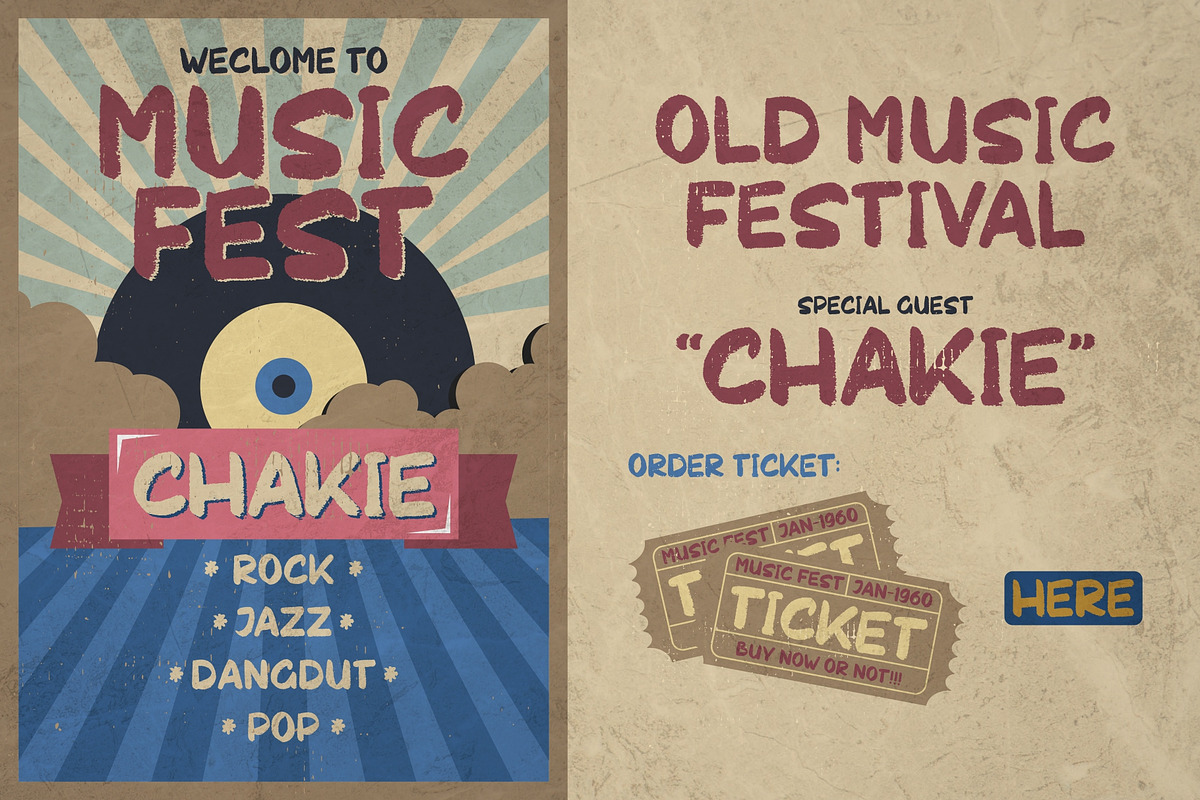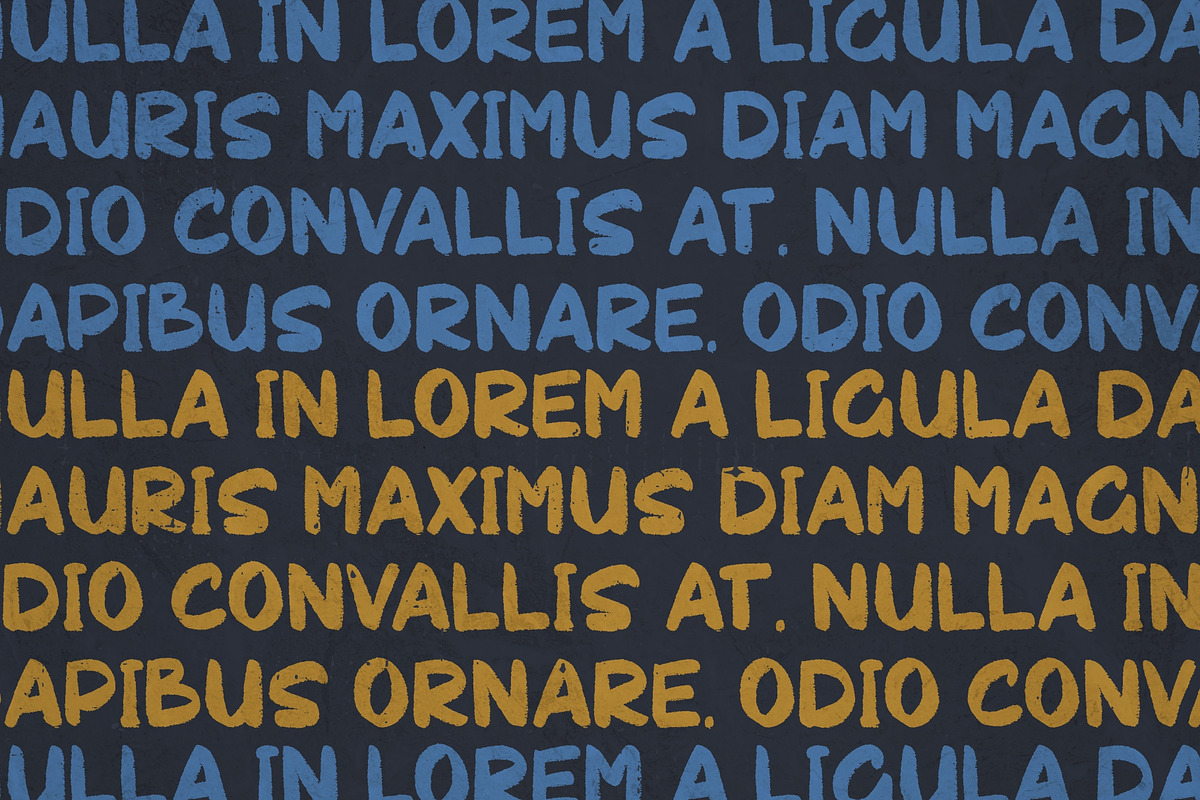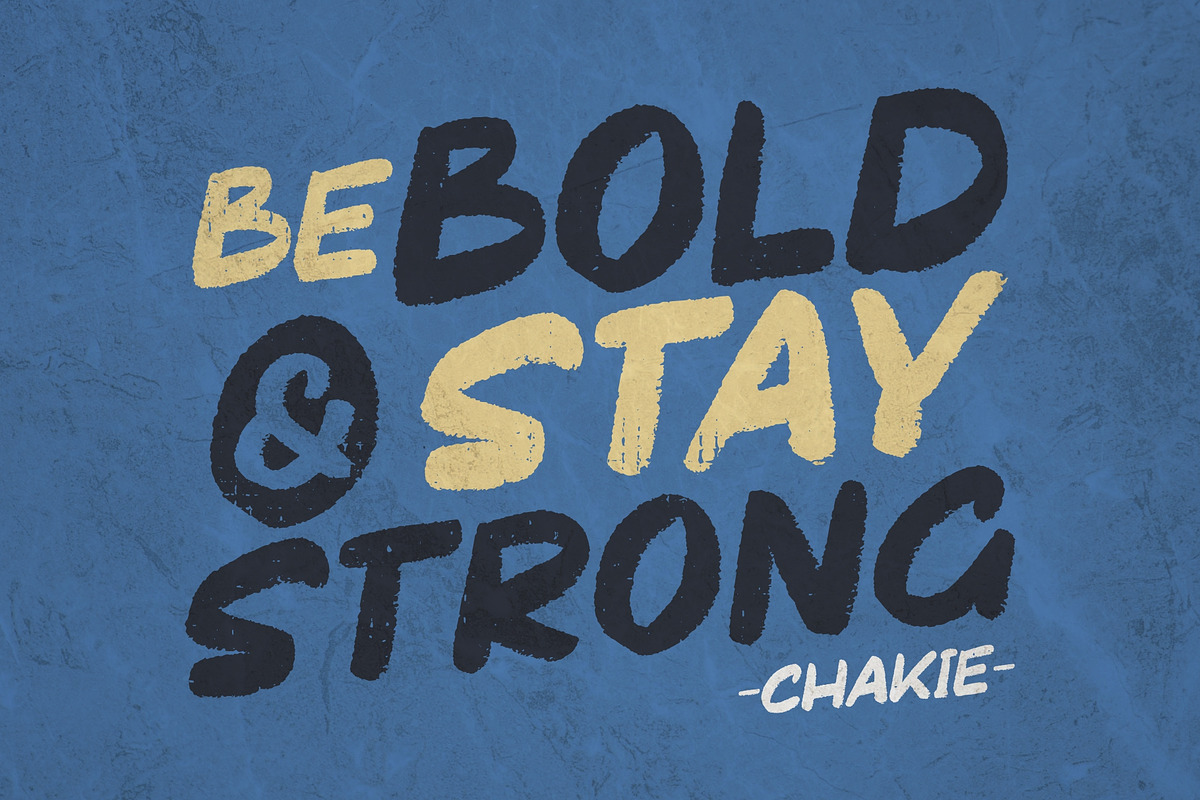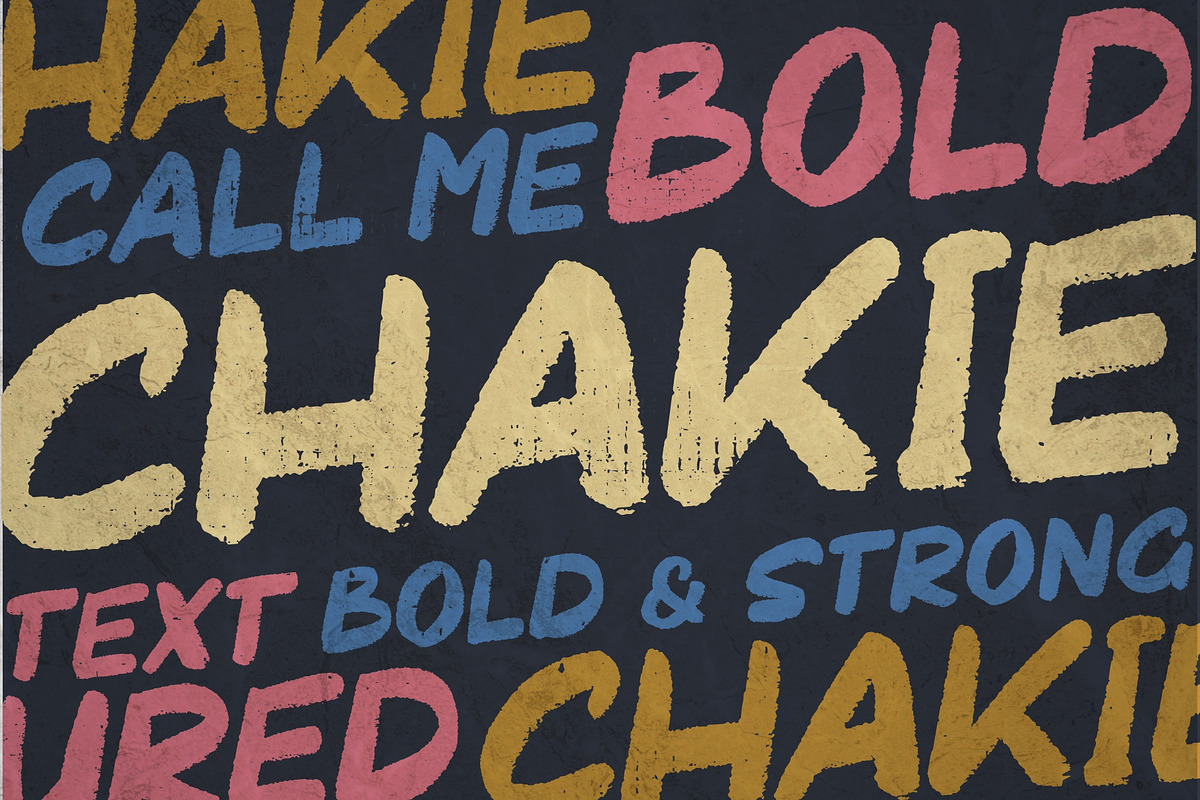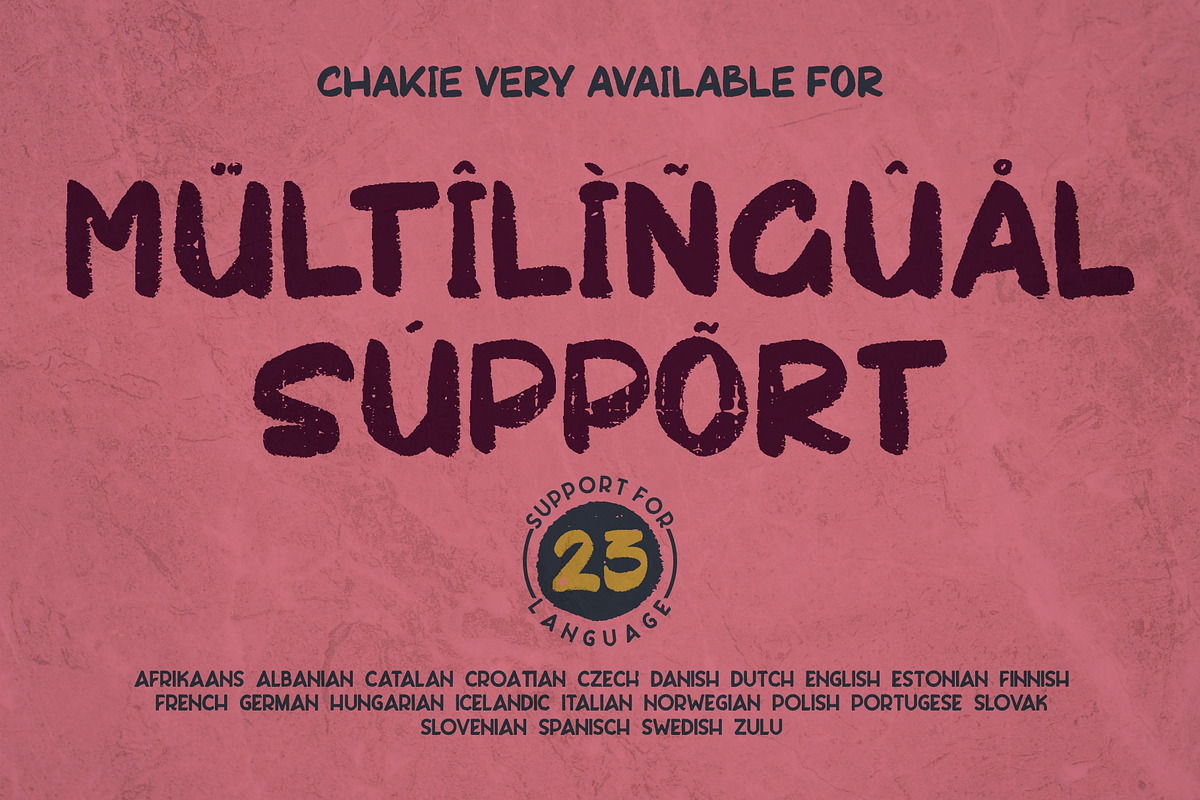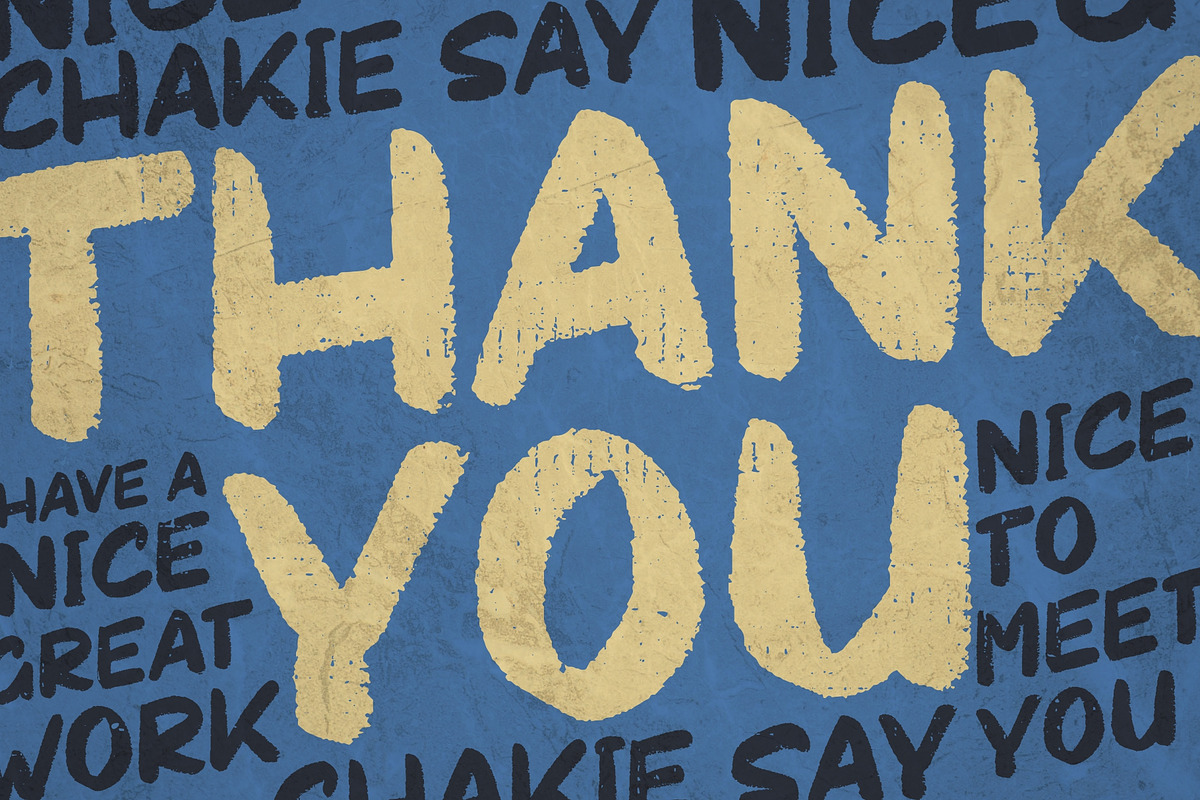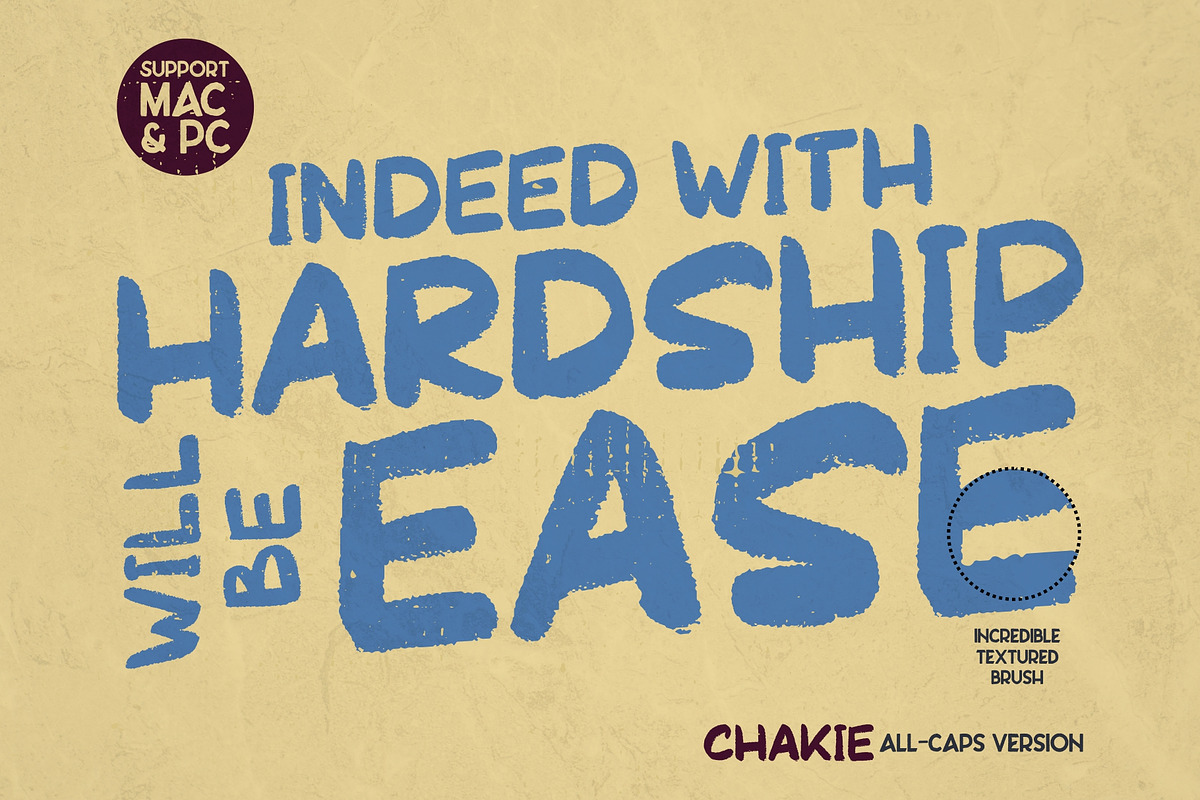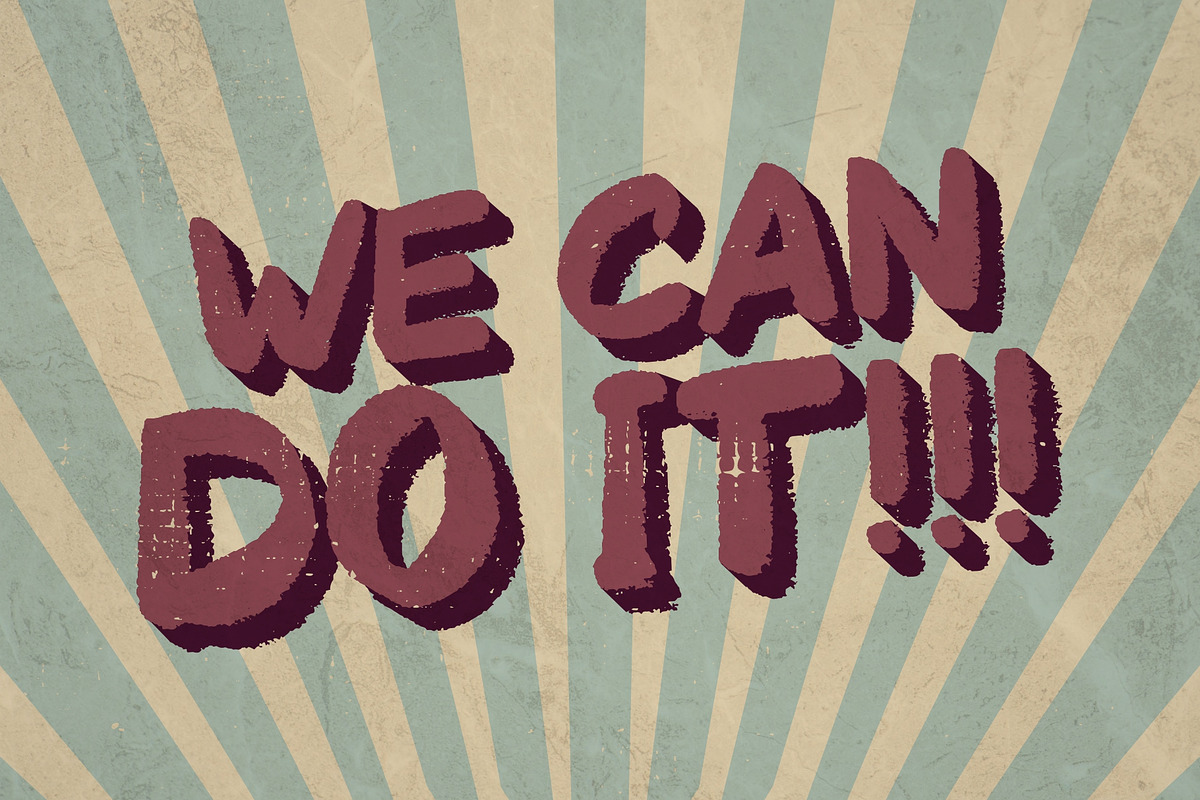
CHAKIE - Retro Brush Font
Just call me CHAKIE, i'm born from old natural brush chalk years '60-'70, the brush make me very bold and strong for your great work and design! You can use me for poster, t-shirt design, branding, packaging, label, typography design, and many more you want. Bring back me to the '60 brother! :D
We can support for 23 languange (WOW!)
I'm open for PUA encoded
CHAKIE - Retro Brush Font by Garisman Std fits naturally into Branding, posters, packaging, typography.